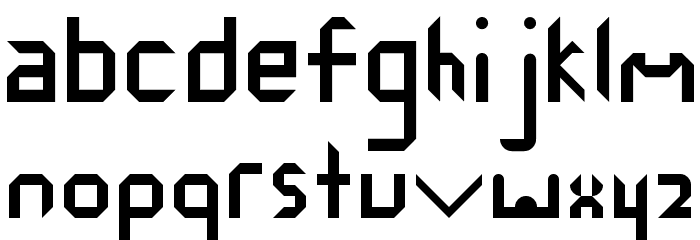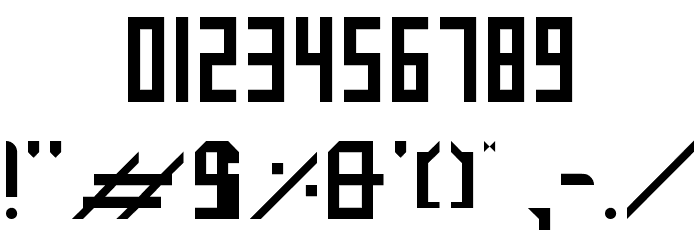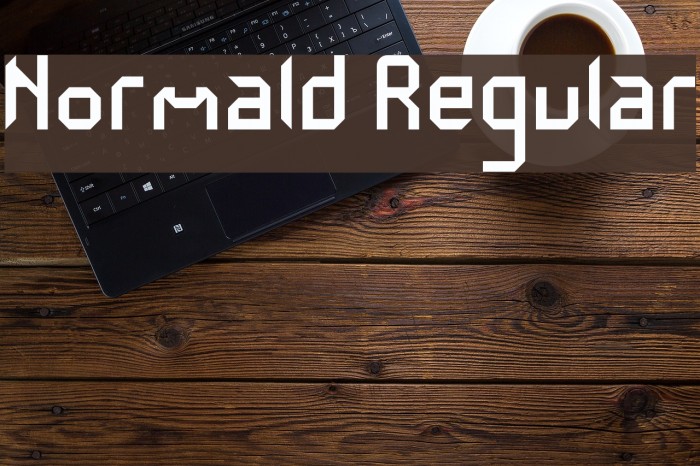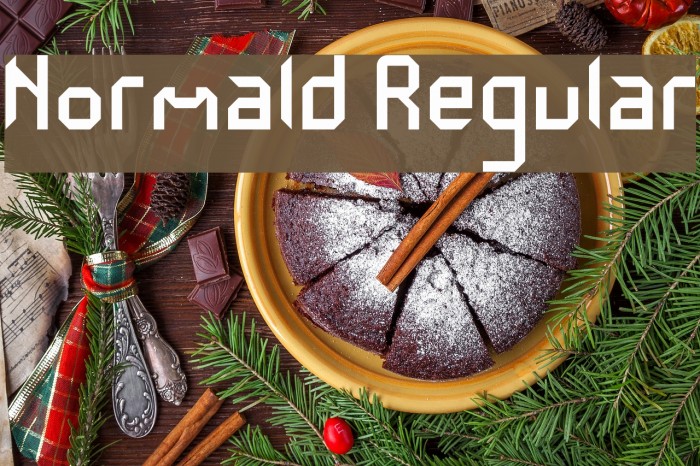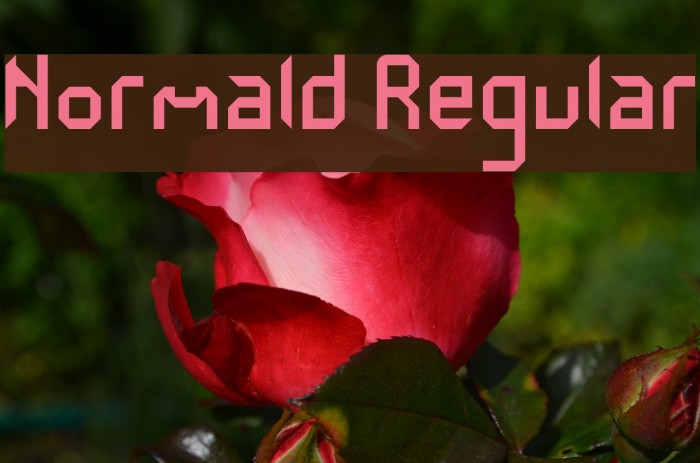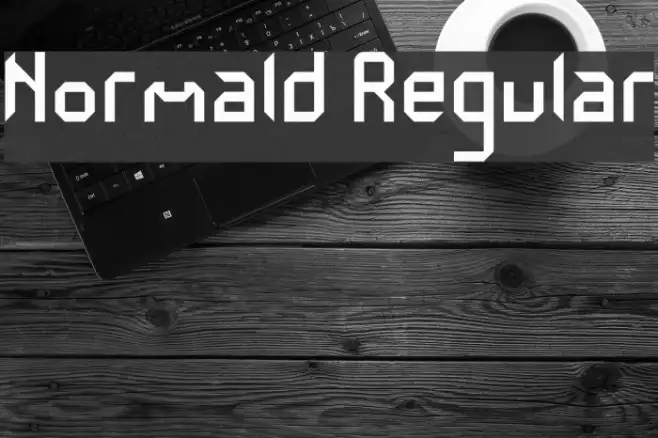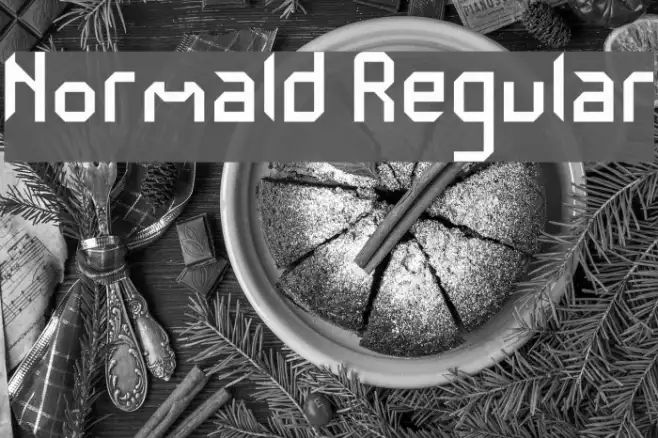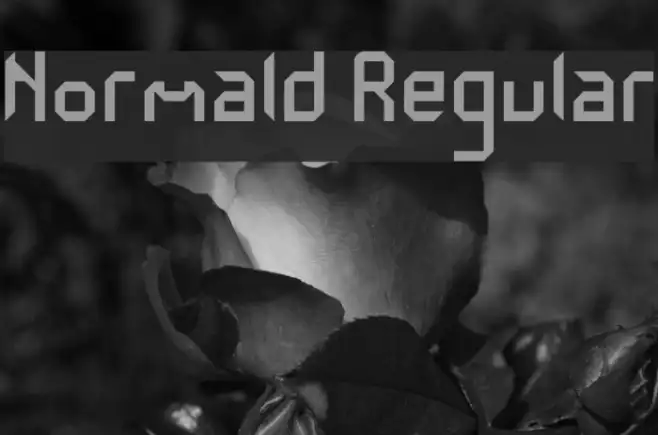
Normald Regular Font
This font features a bold, geometric design with sharp angles and a modern aesthetic. The uppercase and lowercase letters are distinct, with a consistent angular theme that gives it a futuristic feel. The numbers and special characters maintain this geometric style, ensuring uniformity across all glyphs. The font's unique structure makes it stand out, with each character having a strong presence due to its bold lines and angular cuts. The overall design is clean and precise, making it suitable for projects that require a modern and edgy look.
A bold, geometric font with sharp angles and a modern aesthetic.
- Proposed Projects: Ideal for branding, posters, and digital media that require a modern and edgy look.